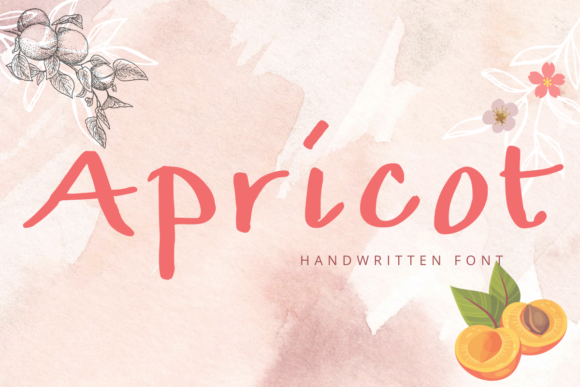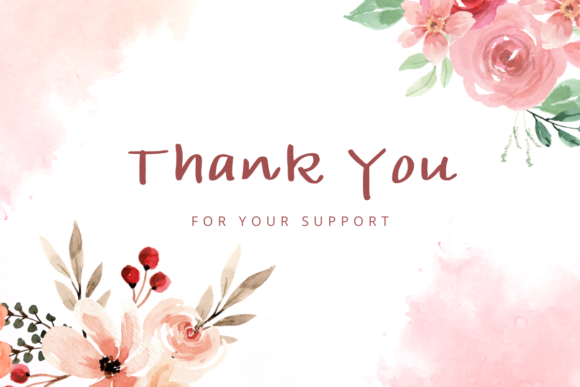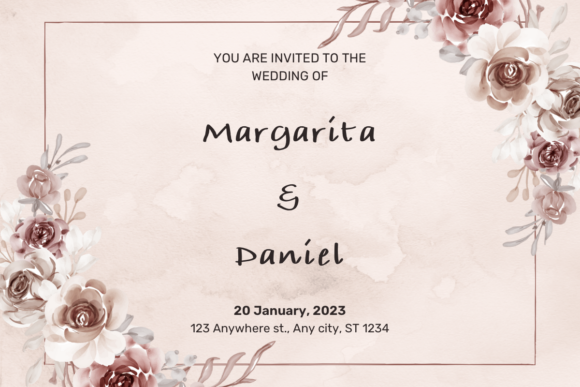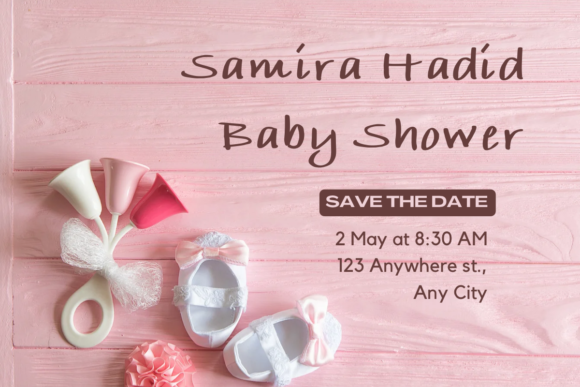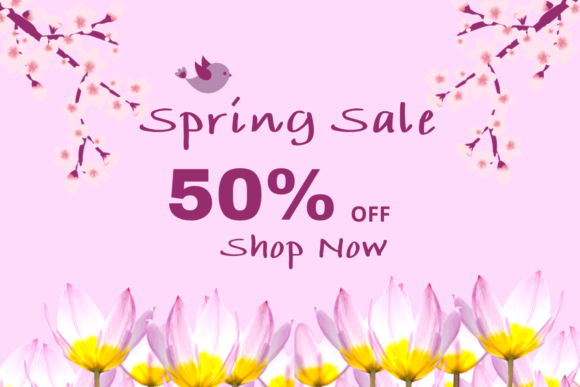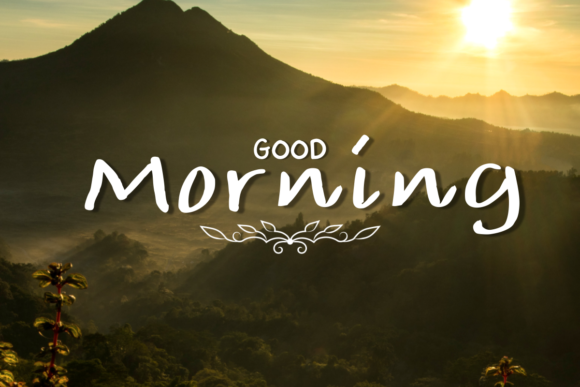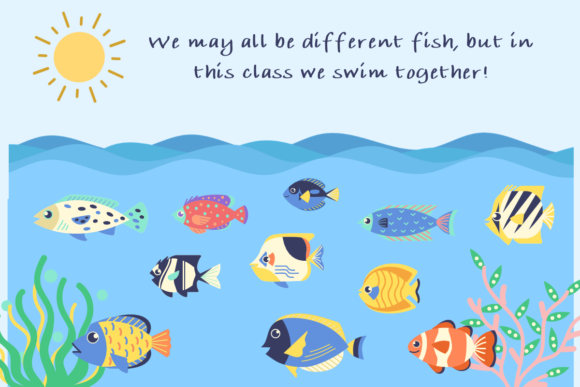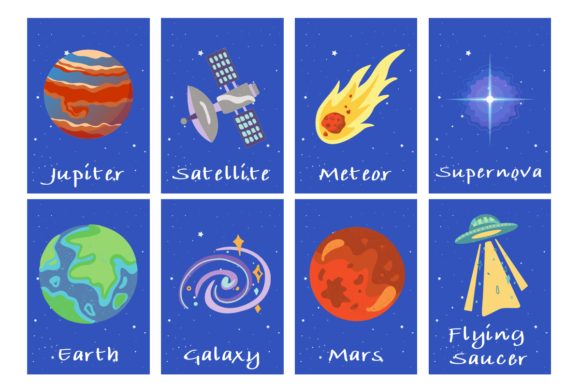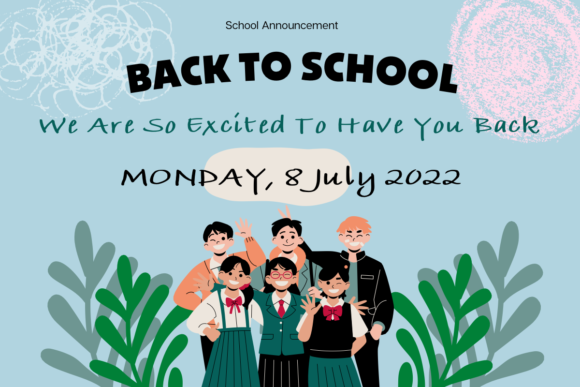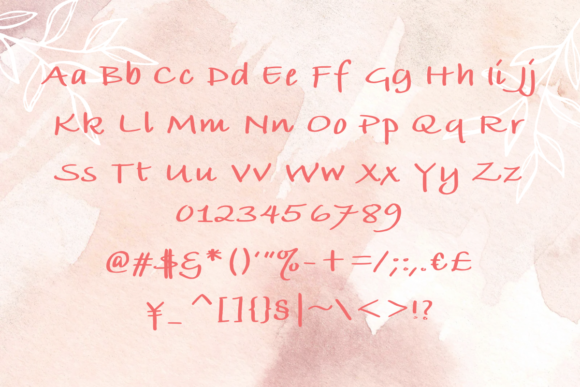
Apricot Font
About Apricot Font
Apricot is a fun and friendly handwritten font that injects a playful and inviting vibe into your designs. This font serves as a versatile tool to transform any design idea into a true standout. Its unique charm becomes a source of inspiration, allowing you to create lovely and eye-catching designs that resonate with creativity and warmth.
The handwritten style of Apricot adds a personal touch to your projects, making them feel more approachable and engaging. Whether you’re working on social media graphics, invitations, or other design endeavors, Apricot’s fun and friendly demeanor ensures that your creations exude a sense of joy and creativity.
The versatility of Apricot shines through as it adapts seamlessly to various design contexts. Its ability to turn any design idea into a standout piece makes it a go-to font for projects that demand a lively and expressive aesthetic.
Incorporating Apricot into your designs can breathe life into your creative expressions. The font’s unique charm inspires a fresh perspective, encouraging you to explore new ideas and infuse a delightful energy into your projects.
In summary, Apricot is more than just a font; it’s a fun and friendly handwritten script that sparks creativity and turns ordinary designs into true standouts. Let Apricot be the source of inspiration that adds a touch of charm and liveliness to your creative endeavors, helping you craft lovely and memorable designs.